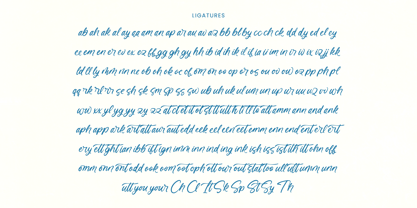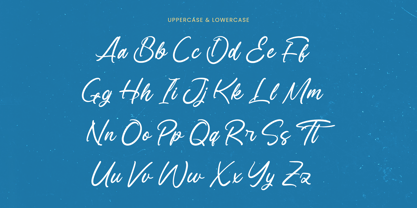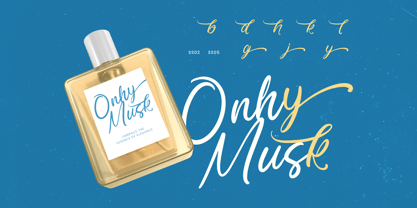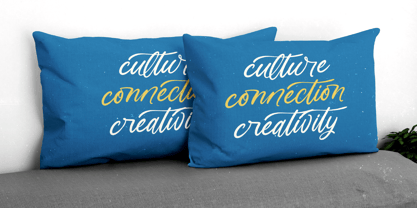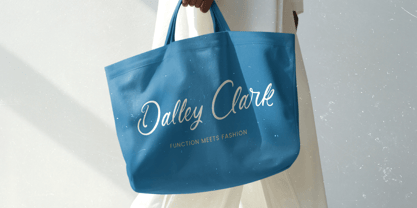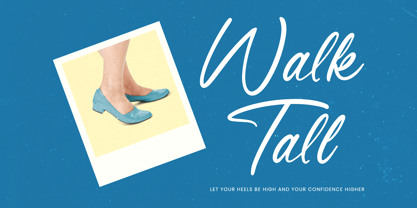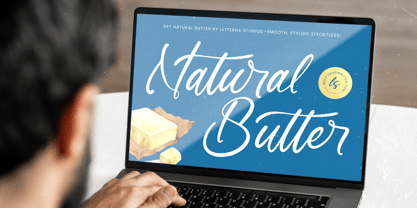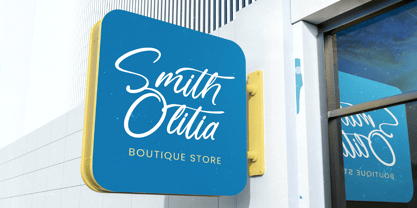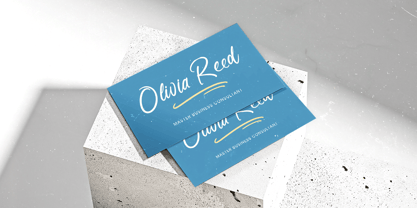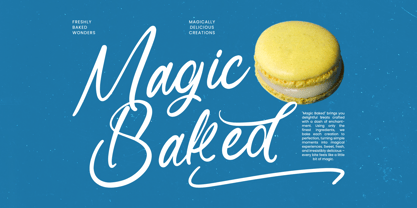
Natural Butter
by Letterena Studios
The Natural Butter Font Family was designed by Heru Utama Putra and published by Letterena Studios. Natural Butter contains 2 styles and family package options. More about this family
Natural Butter - Bold Handwritten Font , Natural Butter is a bold handwritten script with smooth curves, organic flow, and a friendly handcrafted feel. Designed for warm, approachable branding, this script font adds personality and charm to packaging, logos, bakery products, café menus, handmade goods, and social media graphics. With 188 ligatures, 60 alternates, and 8 swashes, it offers plenty of stylistic freedom to create natural-looking lettering compositions that feel expressive and authentic.